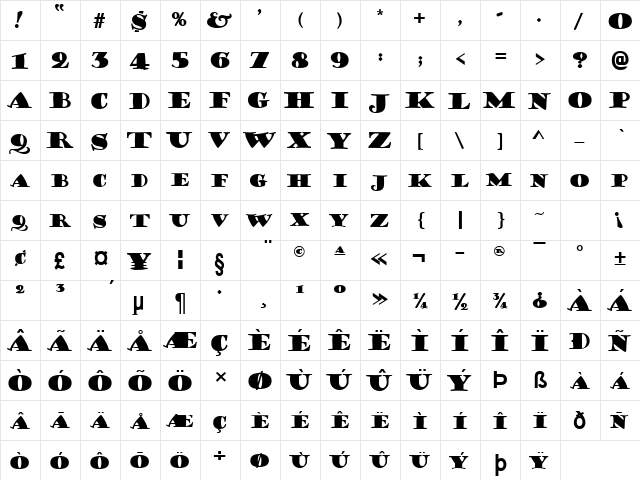
CoffeeSack Normal
Design Context for CoffeeSack Typeface
CoffeeSack is a composed and adaptable typeface that performs quietly and consistently across a wide range of design contexts.